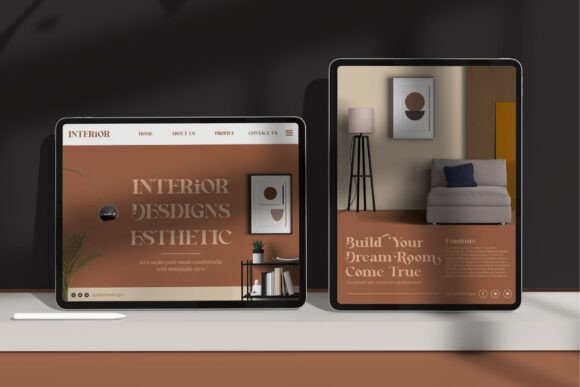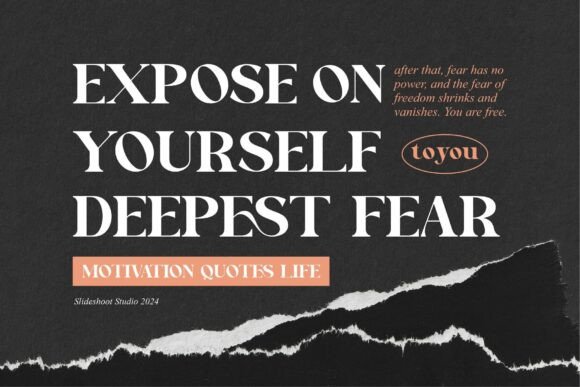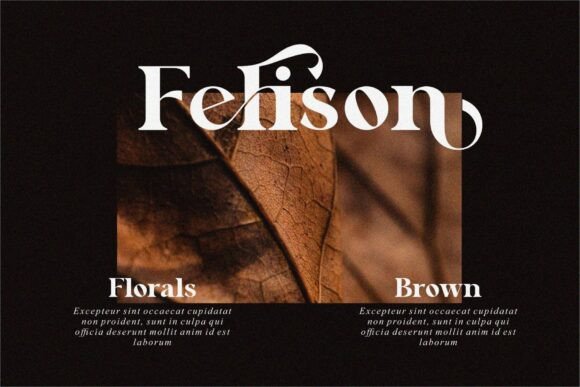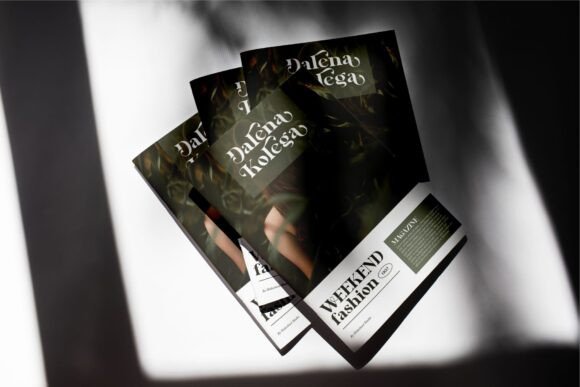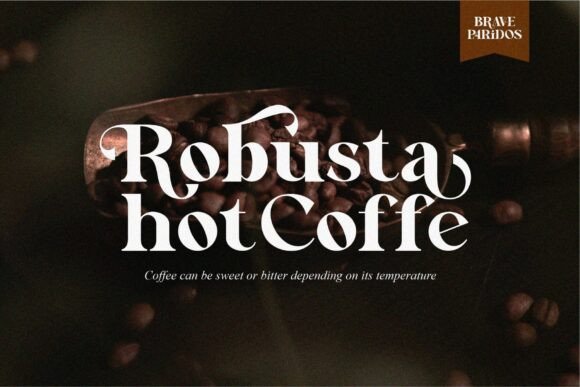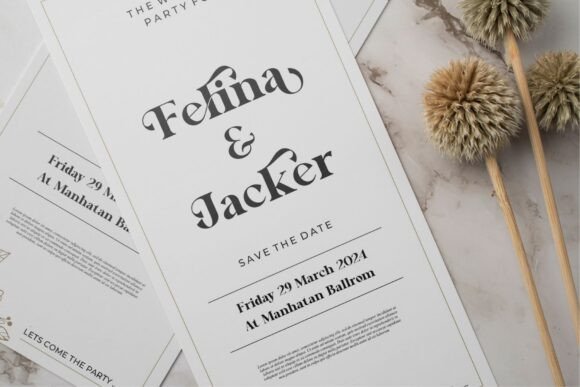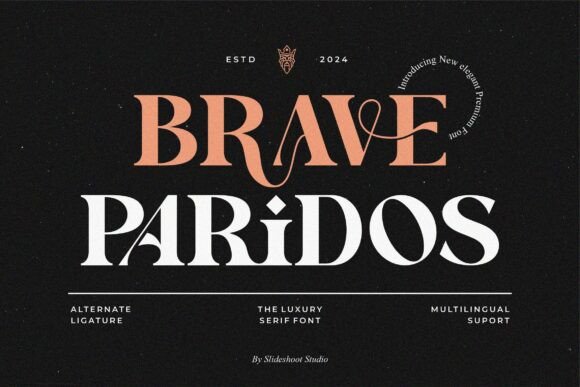
Brave Paridos Font: Elevate Your Designs with Luxury and Elegance
In the world of typography, a font can make or break a design. For designers and crafters seeking to add a touch of sophistication and elegance to their projects, Brave Paridos font is an excellent choice. This modern serif font is designed to attract attention and beautify any design, making it perfect for a wide range of applications.
The Characteristics of Brave Paridos Font
Brave Paridos is a modern serif font that exudes luxury and elegance. Its sleek lines, refined curves, and stylish changes make it a standout in the world of typography. The font’s sophisticated design ensures cohesion and harmony, making it an excellent choice for designers seeking to create visually stunning projects.
Brave Paridos font is versatile and can be used for various design applications, including:
- Invitation Card Designs: Add a touch of elegance to your invitation cards with Brave Paridos font. Its sophisticated design ensures that your invitations stand out and make a lasting impression.
- Company Logos: Create a professional and luxurious brand image with Brave Paridos font. Its modern serif design ensures that your logo is both stylish and memorable.
- Movie Titles and Names: Add a touch of glamour to your movie titles and names with Brave Paridos font. Its elegant design ensures that your movie’s title stands out and captures the audience’s attention.
- Business Cards: Elevate your business cards with Brave Paridos font. Its sophisticated design ensures that your business cards make a lasting impression and set you apart from the competition.
- Book Titles and Brand Names: Use Brave Paridos font to add a touch of luxury and elegance to your book titles and brand names. Its modern serif design ensures that your titles and brand names are both stylish and memorable.
What Makes Brave Paridos Font Stand Out?
Brave Paridos font has several features that make it stand out from other fonts:
- Stylish Changes: The font’s stylish changes add a touch of elegance and sophistication to any design.
- Ligatures: Brave Paridos font features ligatures, which ensure that the font’s letters flow smoothly and harmoniously.
- Modern Serif Design: The font’s modern serif design ensures that it is both stylish and sophisticated.
Why Choose Brave Paridos Font?
There are several reasons why designers and crafters should choose Brave Paridos font for their projects:
- Sophistication: Brave Paridos font exudes sophistication and elegance, making it perfect for designers seeking to create luxurious and high-end designs.
- Versatility: The font’s versatility ensures that it can be used for a wide range of design applications.
- Attention-grabbing: Brave Paridos font is designed to attract attention and make a lasting impression.
In conclusion, Brave Paridos font is an excellent choice for designers and crafters seeking to add a touch of luxury and elegance to their projects. Its modern serif design, stylish changes, and ligatures make it a perfect partner for any project. With its versatility and attention-grabbing design, Brave Paridos font is sure to elevate your designs and make them stand out.